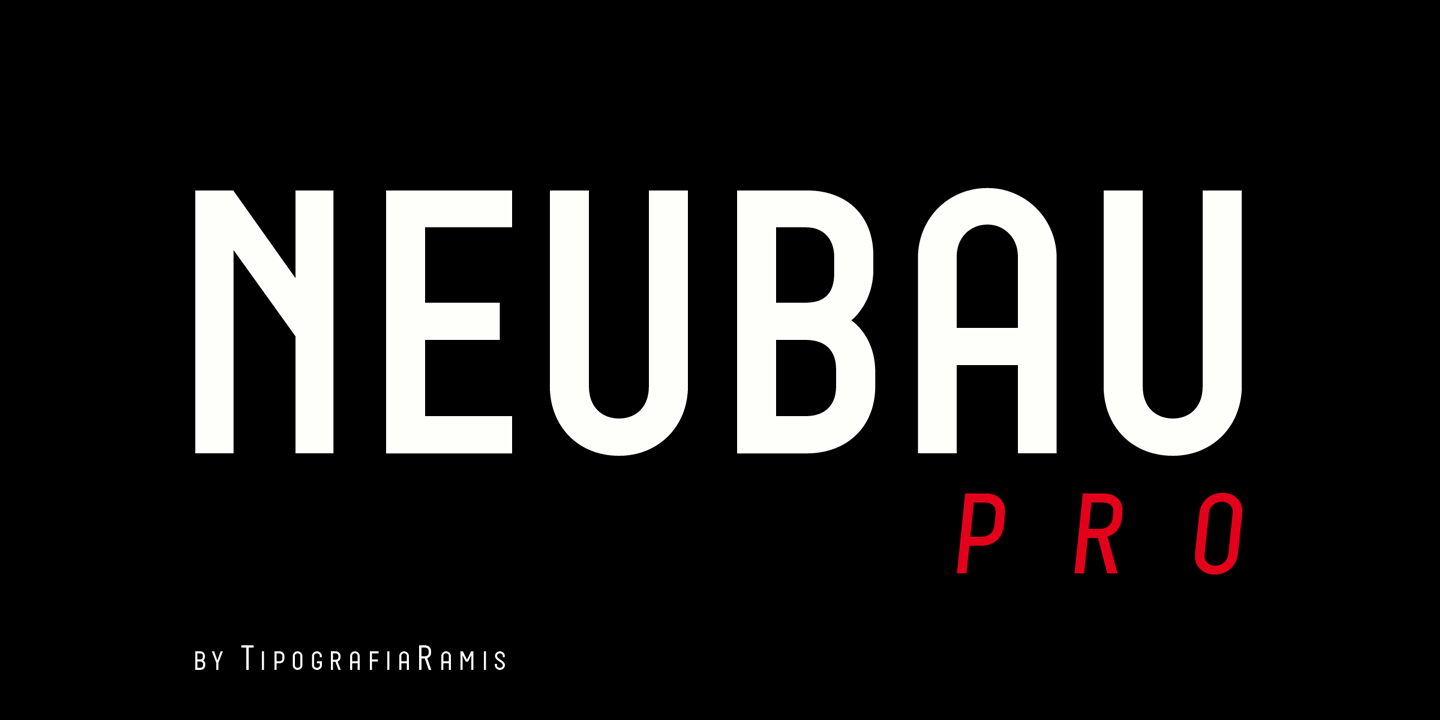
Neubau Pro Font is perfect for architectural firm branding, modernist design portfolios, construction company logos, urban planning presentations, contemporary art galleries, industrial design catalogs, minimalist corporate identities, and progressive construction project documentation.
Neubau Pro Font is exciting because it masterfully embodies the revolutionary spirit of modernist architecture and construction innovation with its clean, structural letterforms that reflect the geometric precision and functional beauty of contemporary building design, capturing the essence of architectural progress and urban development that shapes modern cityscapes, making it ideal for projects requiring professional authority and forward-thinking design philosophy.
The Neubau Pro Font family includes multiple weights and styles such as Regular, Bold, Light, Thin, and Extended versions, providing designers with comprehensive options for creating systematic typographic structures that maintain the architectural aesthetic across various construction, design, and professional applications.
Neubau Pro Font Free Download offers designers access to a professionally engineered typeface that embodies the principles of modern construction and architectural excellence. This exceptional font captures the essence of structural innovation and the systematic approach that defines contemporary building practices, creating a powerful tool for professionals seeking to communicate technical expertise, reliability, and progressive design thinking.
The font's precisely constructed letterforms feature geometric clarity and structural proportions that mirror the engineering principles found in modern architecture and urban development projects. Each character has been carefully engineered to work harmoniously within compositions, ensuring that Neubau Pro Font delivers exceptional readability while maintaining the professional character that makes it so effective in architectural and construction applications.
Professional designers working with construction firms and architectural studios appreciate this font's ability to instantly communicate technical competence and modern sophistication. The typeface excels in applications where structural integrity meets visual communication, from architectural presentation materials to construction company branding, from urban planning documentation to modernist design portfolios.
The comprehensive character set includes technical symbols and architectural notation support, making it particularly suitable for professional construction projects while preserving its distinctive modernist character. Whether used for project proposals, technical documentation, or corporate communications, this font delivers consistent visual authority that enhances professional credibility and industry recognition.
Creative professionals in the architecture and construction industries have embraced Neubau Pro Font for its unique ability to bridge technical precision with contemporary design aesthetics. Its versatility allows it to adapt seamlessly to both traditional construction documentation and cutting-edge architectural presentations while maintaining its structural clarity and professional integrity.
This remarkable typeface has become an essential tool for designers who understand that construction and architecture require typography that reflects the precision and reliability of engineering practices. Its ability to instantly communicate structural soundness and professional expertise makes it invaluable for firms operating in competitive construction and design markets.